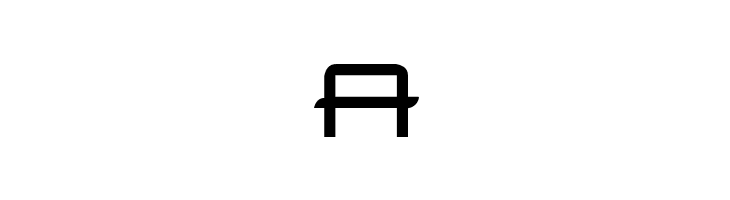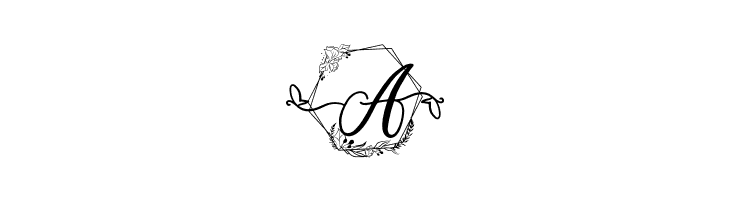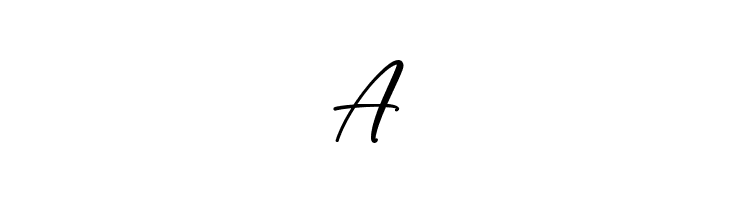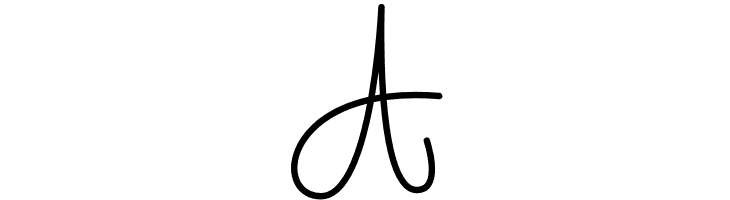
A bold, graffiti-inspired font with a dripping paint effect, perfect for urban and edgy designs.
A lively, flowing script font with elegant, connected strokes.
A playful, bold, hand-drawn style font with rounded, thick letters.
A bold, playful font with a hand-drawn, casual style.
Tall, playful handwritten script with loose, flowing lines.
A bold, geometric font with a modern and technical style.
A bold, cursive font with high contrast and fluid, interconnected letters.
A playful, bold, and outlined font with a cartoonish, hand-drawn style.
A playful, hand-drawn style font with bold, rounded characters.
A playful, bold font with a cartoonish style and shadow effect.
A modern, geometric sans-serif font with a clean and minimalist design.
A flowing, cursive script font with elegant, handwritten characteristics.
A graceful and fluid script font with interconnected, cursive letters.
A flowing, cursive script font with elegant, interconnected strokes.
An elegant, flowing script font with ornate uppercase and smooth lowercase letters.
A flowing, elegant script font with a modern calligraphic style.
A modern script font with elegant, flowing cursive strokes.
A modern, lovely script font with an elegant italic style.
A bold, geometric stencil font with angular, fragmented strokes.
A playful, cursive font with dynamic curves and artistic flair.
A playful, handwritten script font with dynamic curves and bold strokes.
An elegant monogram font with floral embellishments, perfect for personalized designs.
A cursive, handwritten font with elegant, flowing lines and dynamic stroke variations.
A bold, geometric font with a modern and striking design.
A bold, geometric font with a modern and impactful style.
A bold, italicized font with a modern, futuristic style.
A futuristic, hollow, geometric font with clean lines and angular shapes.
( Fonts by LittleWind Studio - Arvan Fatwa - Personal-use only. For commercial use please contact owner. )
A sleek, modern italic font with geometric precision and a futuristic appeal.
( Fonts by Fontherapy - Siti Anisa - Personal-use only. For commercial use please contact owner. )
A bold, playful handwritten font with a lively and energetic style.
( Fonts by Halymunt Studio - Personal-use only. For commercial use please contact owner. )
An elegant script font with flowing, interconnected letters and a sophisticated style.
( Fonts by LittleWind Studio - Arvan Fatwa - Personal-use only. For commercial use please contact owner. )
A sleek, modern font with geometric lines and a futuristic style.
A decorative and playful font with elegant curls and loops.
A bold, playful font with exaggerated serifs and dynamic forms.
A lively and modern script font with dynamic strokes and medium contrast.